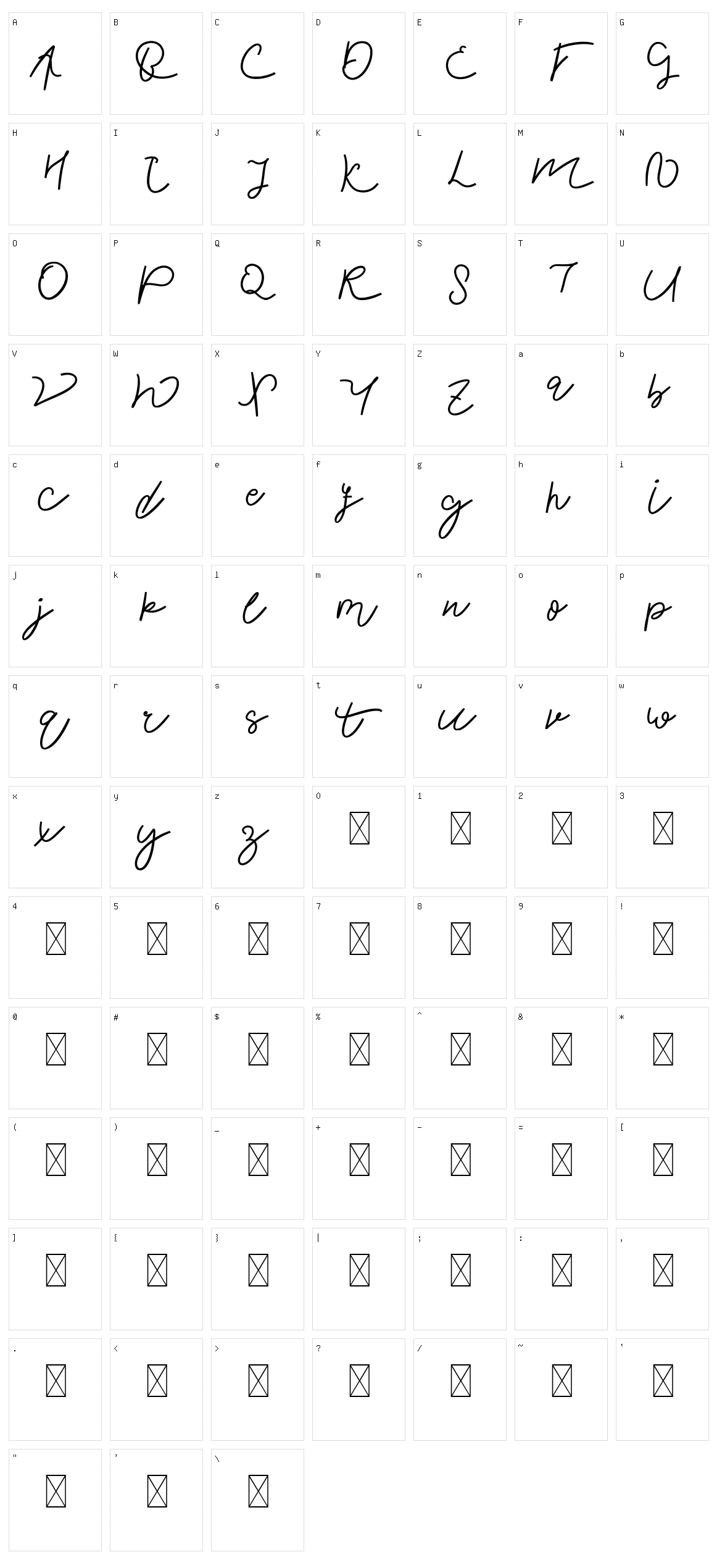
The free font Go Come is carefully designed by Edric Studio, showcasing a thoughtful balance of creativity and usability and falls under the Script font style. When you download the ZIP file, it contains only 20.99 KB of font files, making it lightweight and quick to download. Please review the license details below to understand permitted usage and distribution rights. If license information is not available, we recommend using this font for personal projects only or contacting the author directly for commercial usage permissions.